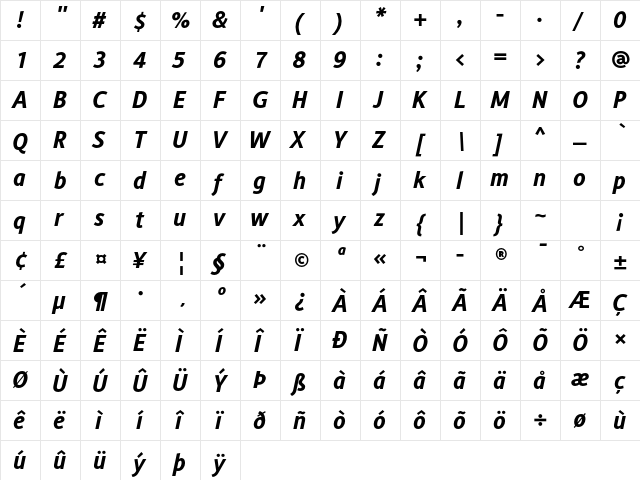
Alber Bold Italic
| Foundry | C.Dickinson |
| Designer | C.Dickinson |
Design Context for Alber Typeface
Alber is a composed and adaptable typeface that performs quietly and consistently across a wide range of design contexts. Its italic angle brings a sense of urgency and motion to the letterforms. Its bold stroke weight gives it real presence on the page.
Pro Tip: Try Alber for annotation and caption copy alongside an upright companion — the contrast in angle creates a dynamic but ordered typographic system.